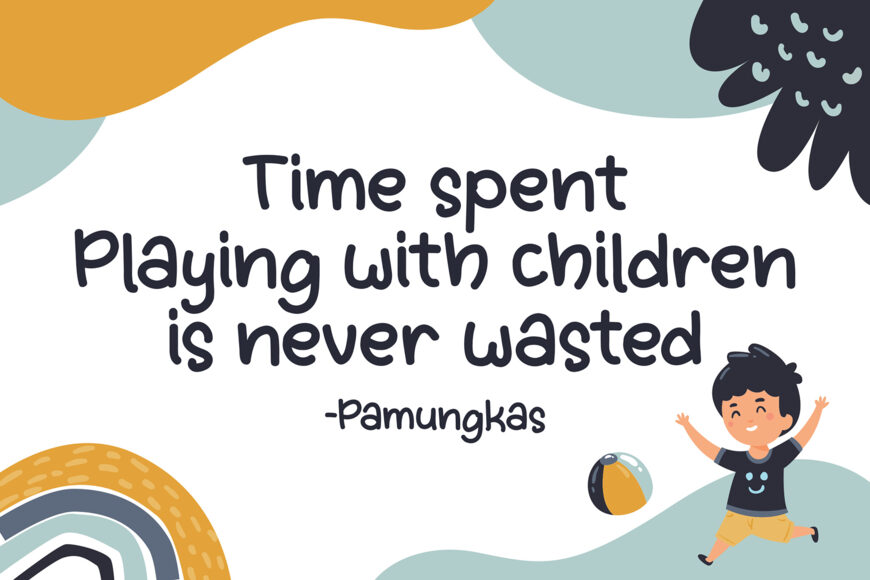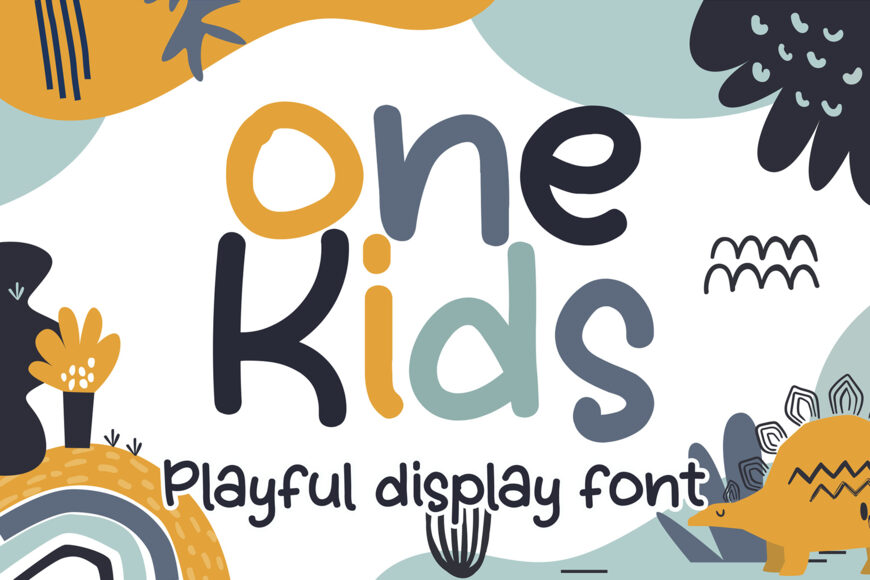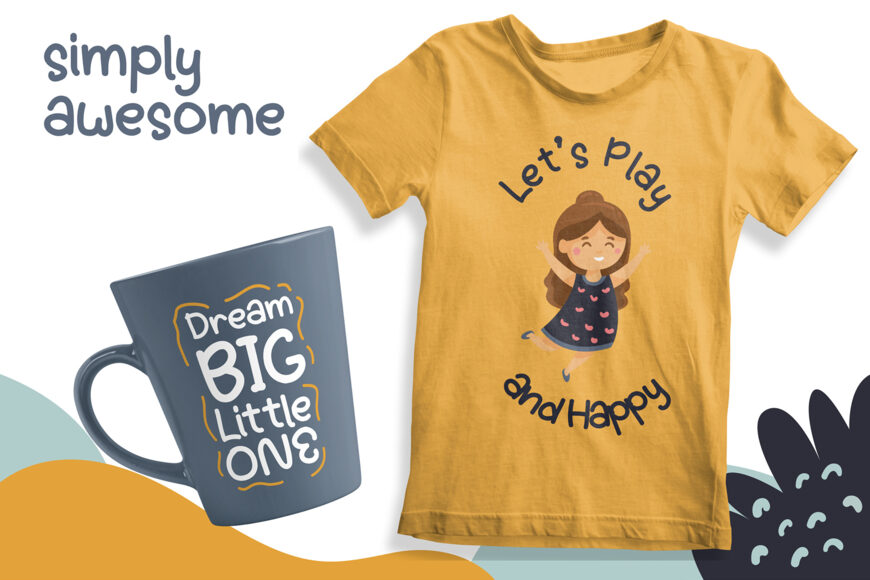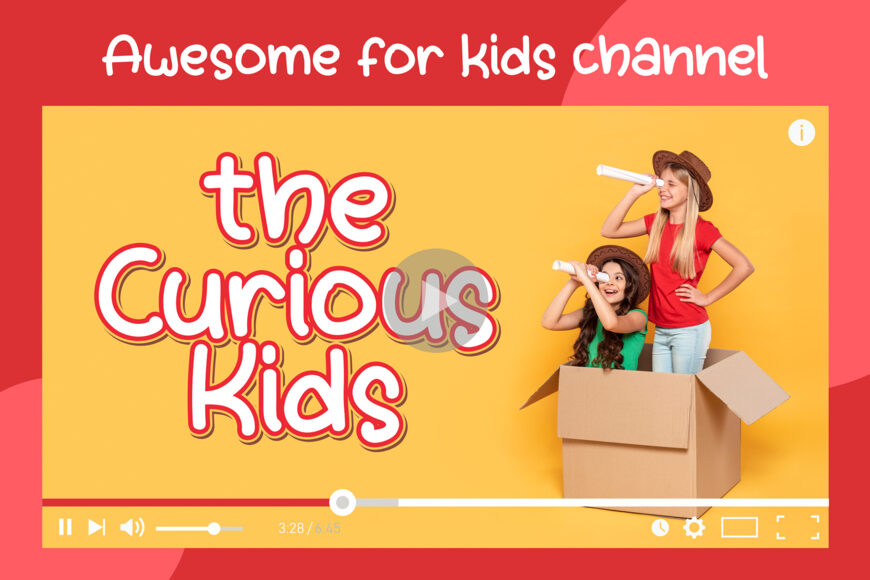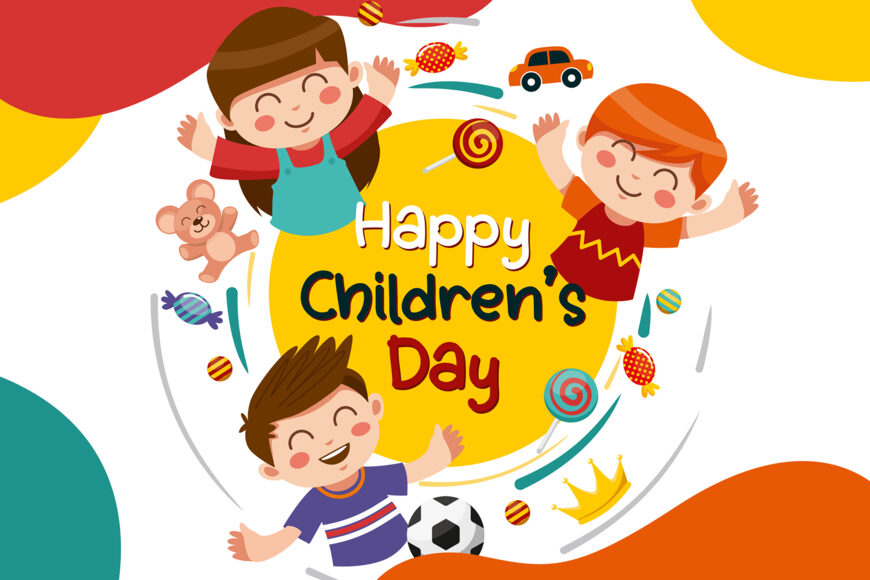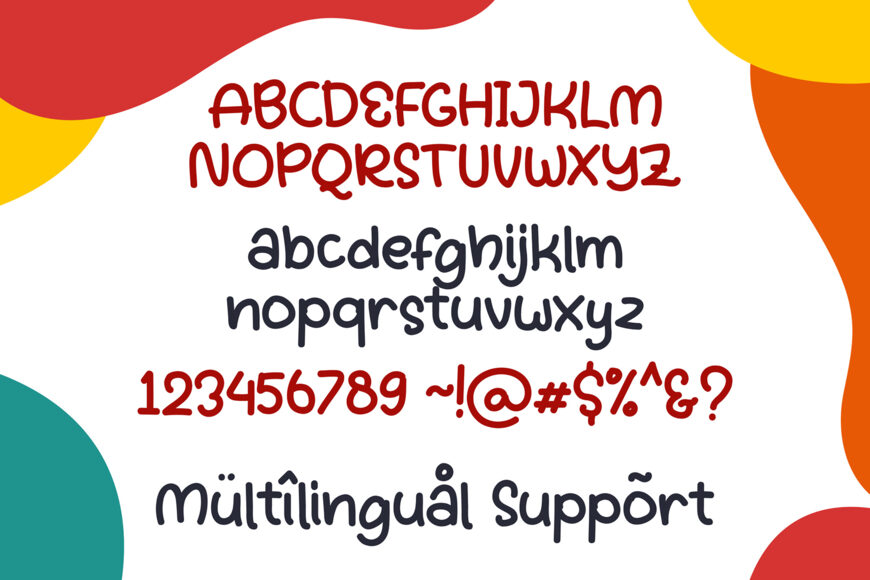
Onekids Font
Onekids is a cute and fun display font. It embodies playfulness and authenticity and is the perfect choice for any children activity or school project. Add this chunky lettered font to your designs and notice how it makes them come alive!